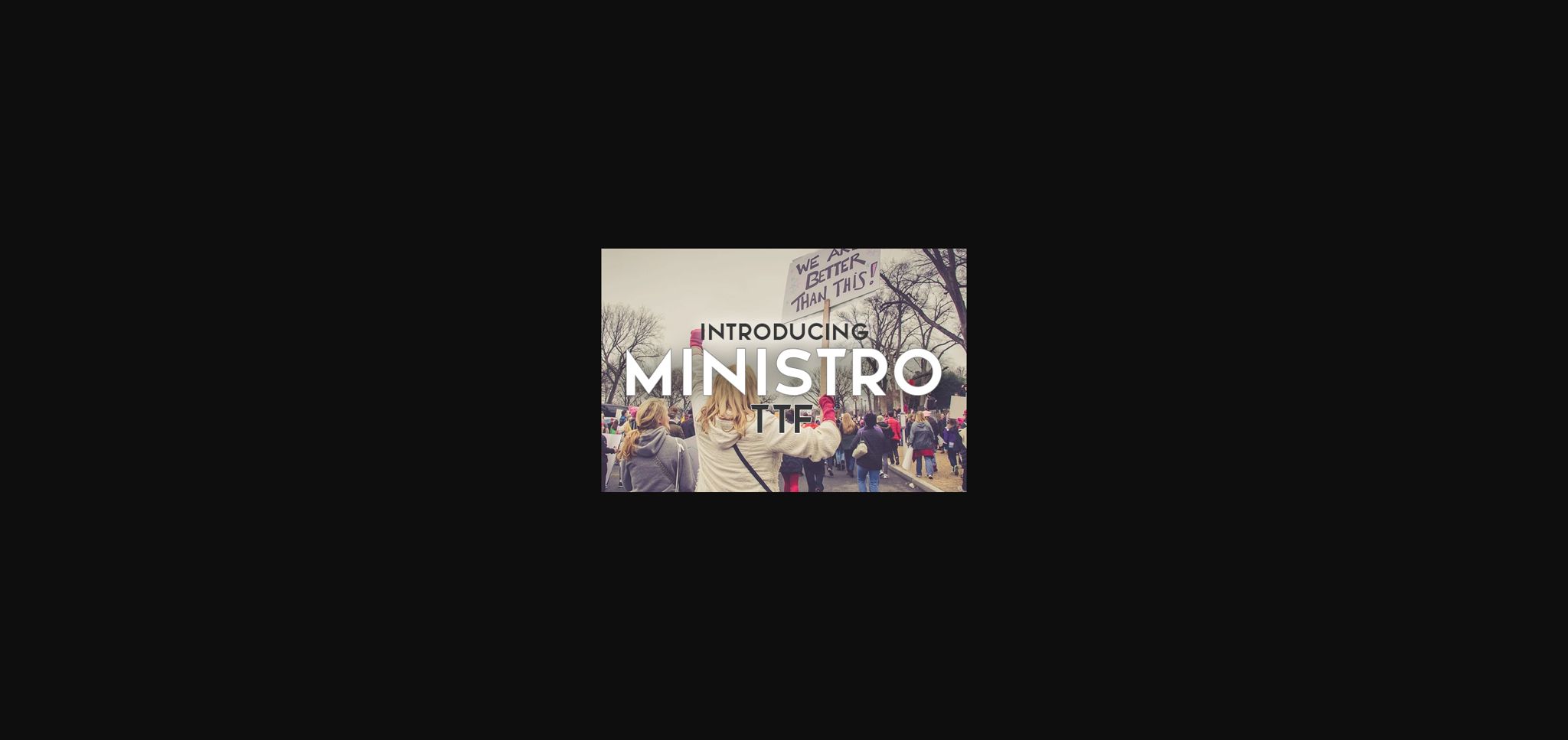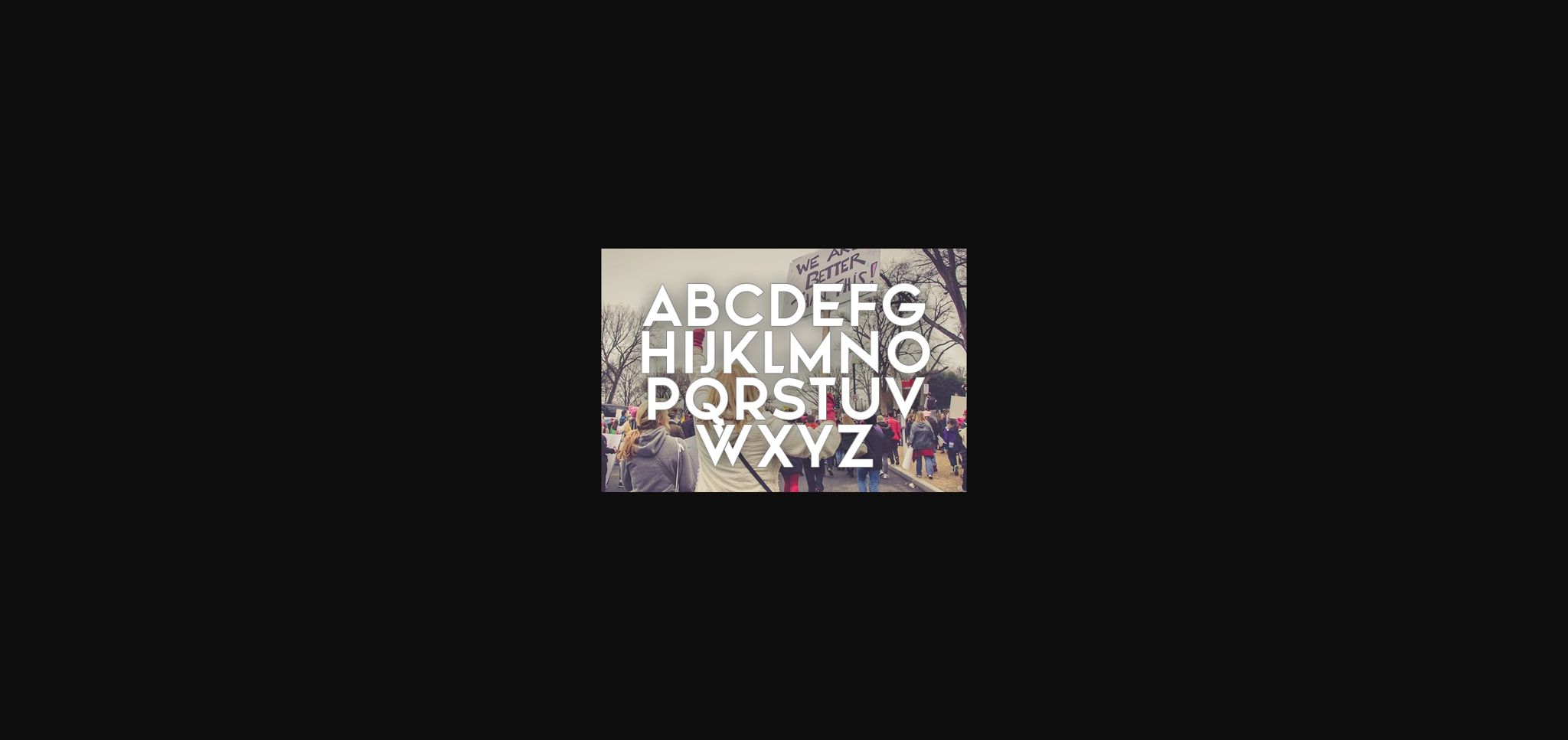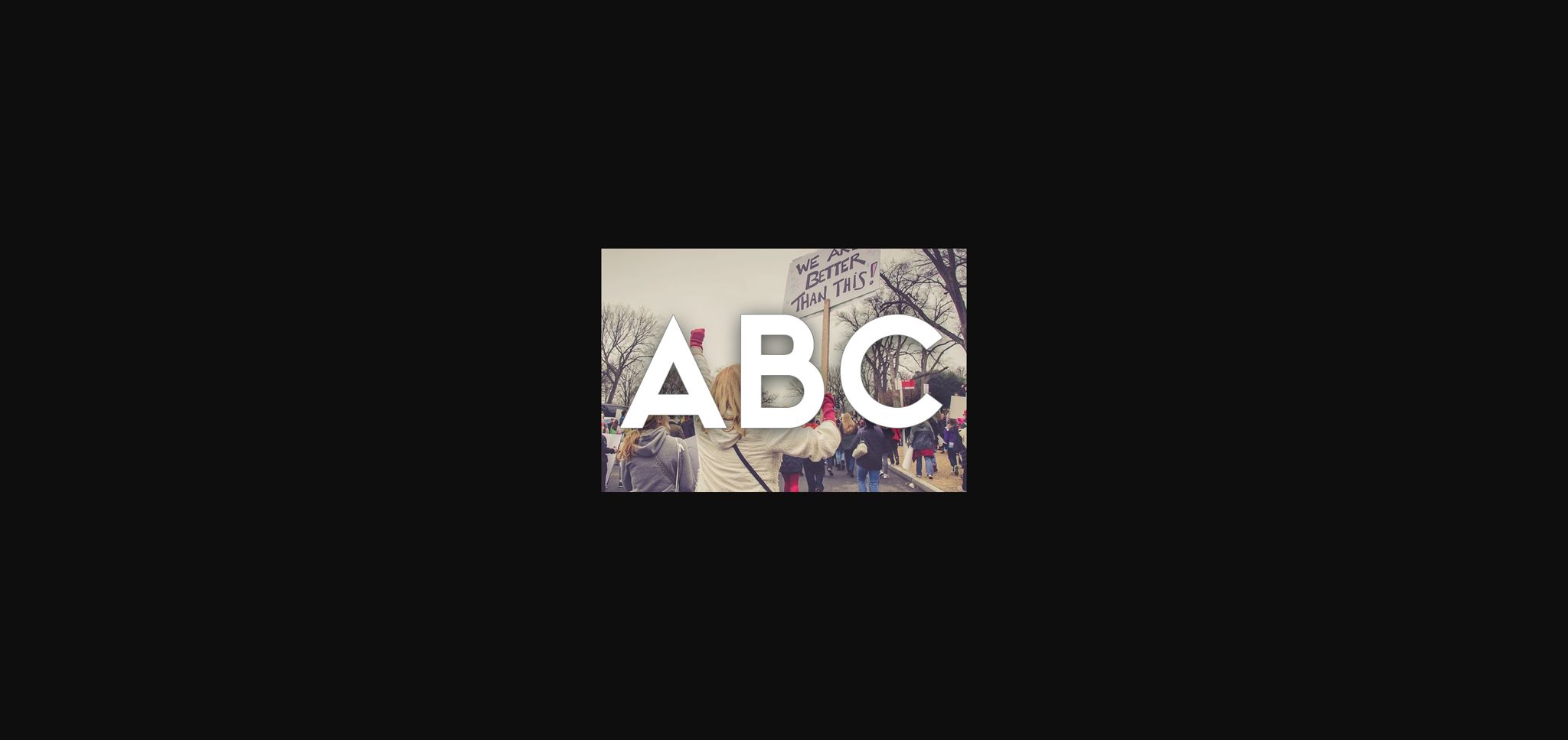
About Ministro Font
Ministro is a simple and genuine sans serif font, featuring a flexible look. No matter the topic, this font will be an incredibly asset to your fonts’ library, as it has the potential to elevate any creation.